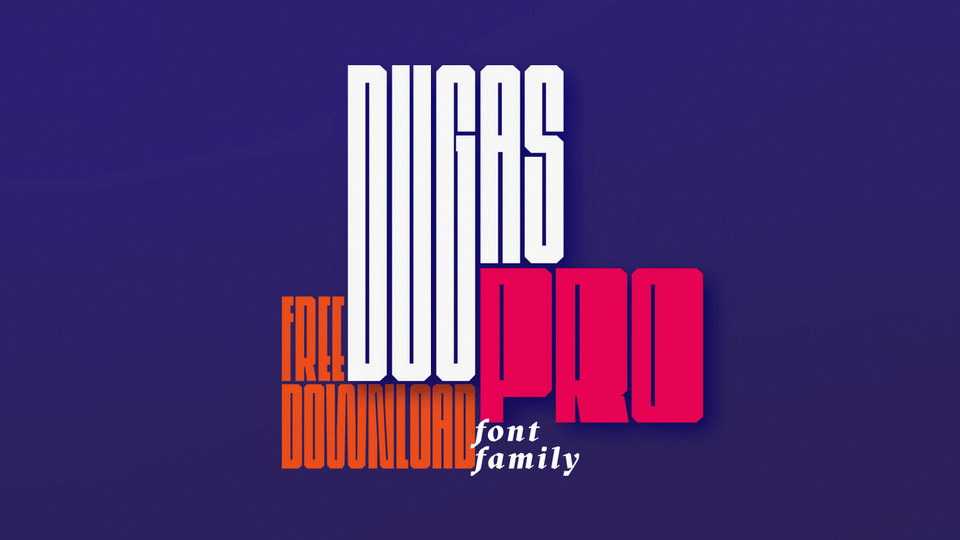
Download Dugas Pro typeface, decorative display font family in 25 varieties. Dugas Pro has very limited readability, so use it for simple words, preferably for typographic posters.
Designer: Jacek Macha Machowski